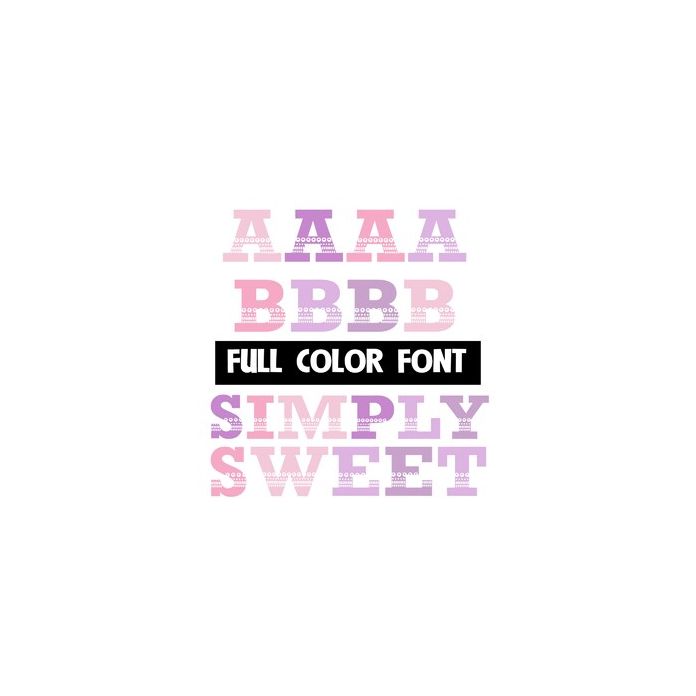
This full-color font features a decorative font in shades of pink and lavender. For best results mix both cases up as you type. There is an alt case w/ additional colors you can access through your system or Silhouette's glyph map. This font works best for titles, displays, posters and more. Please note color fonts will show as black in non compatible programs. This font type is compatible with Silhouette Studio.